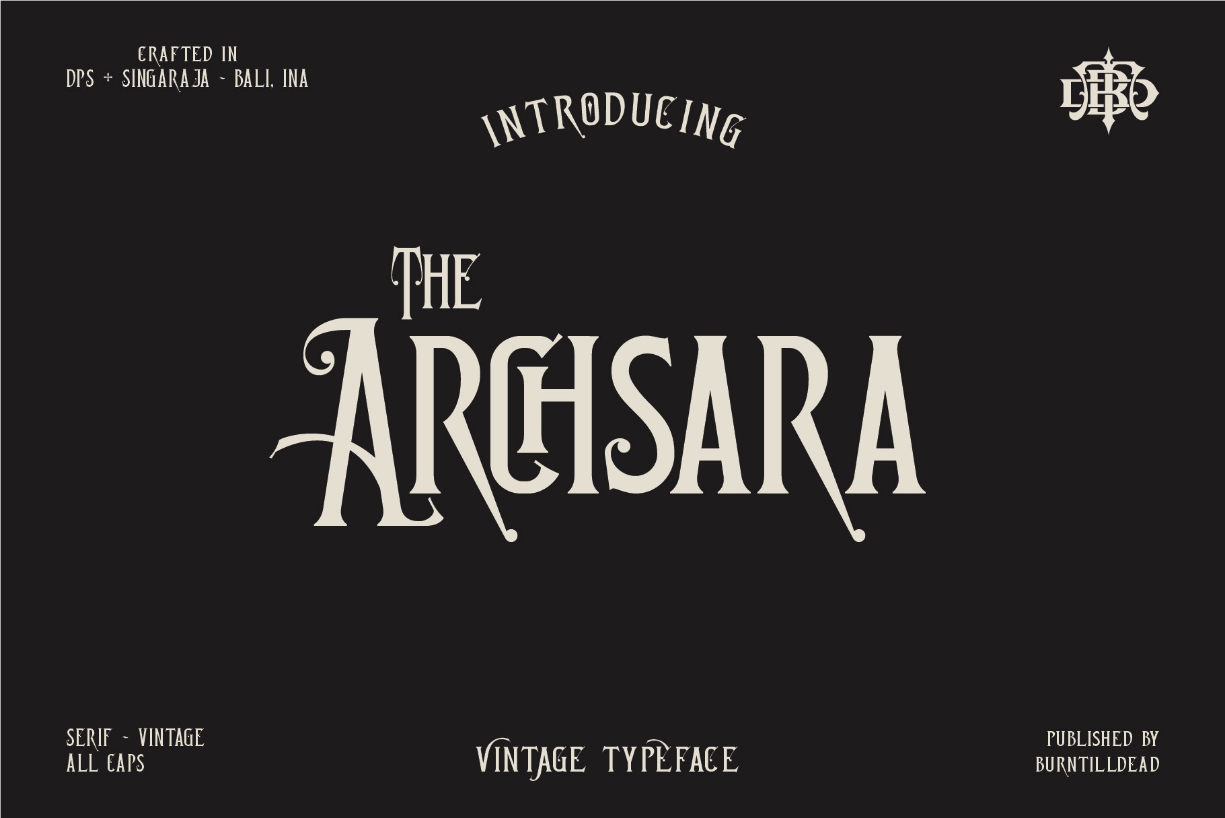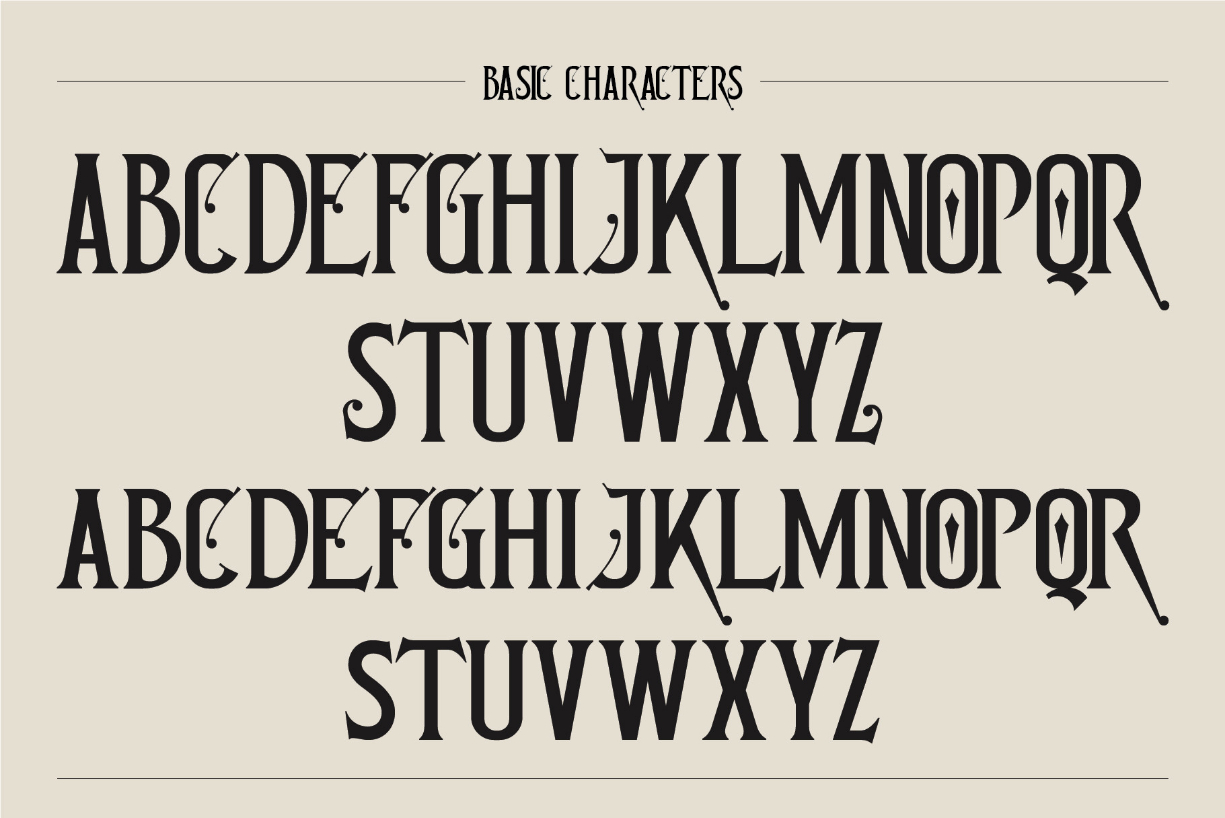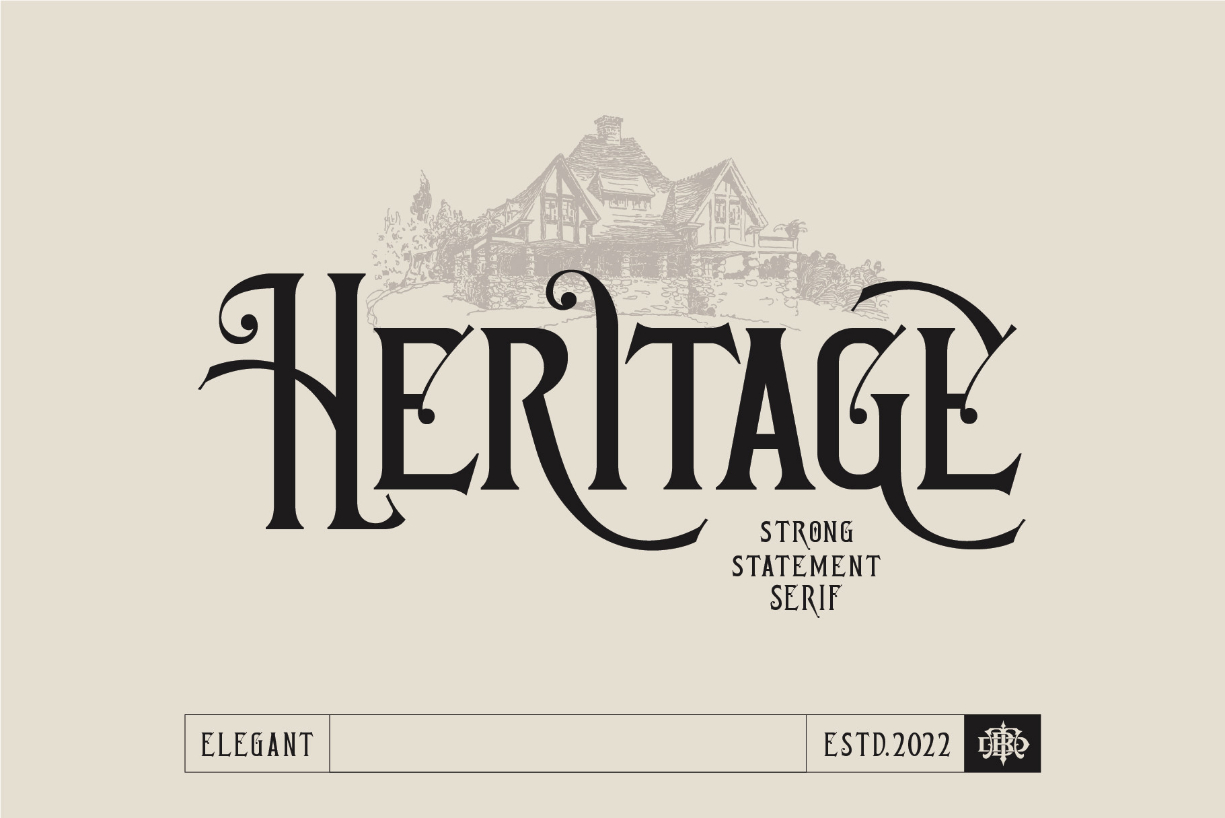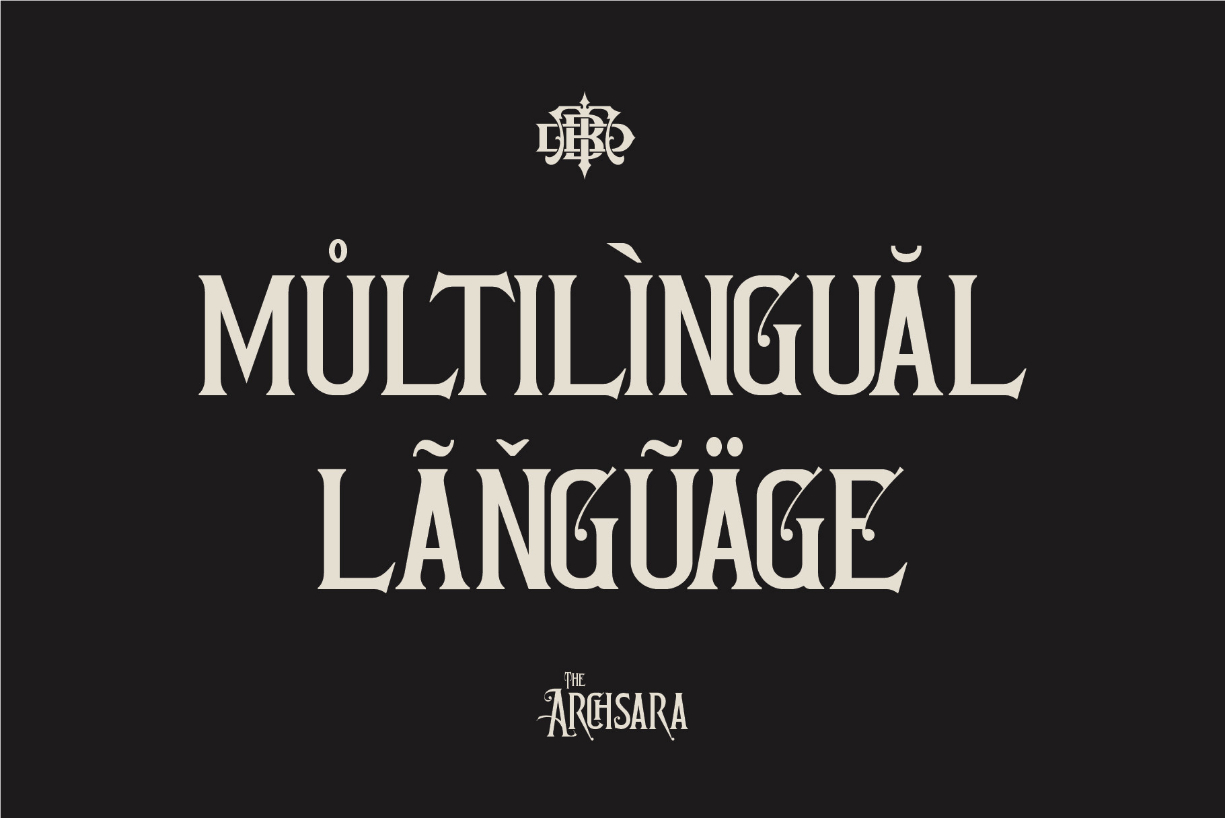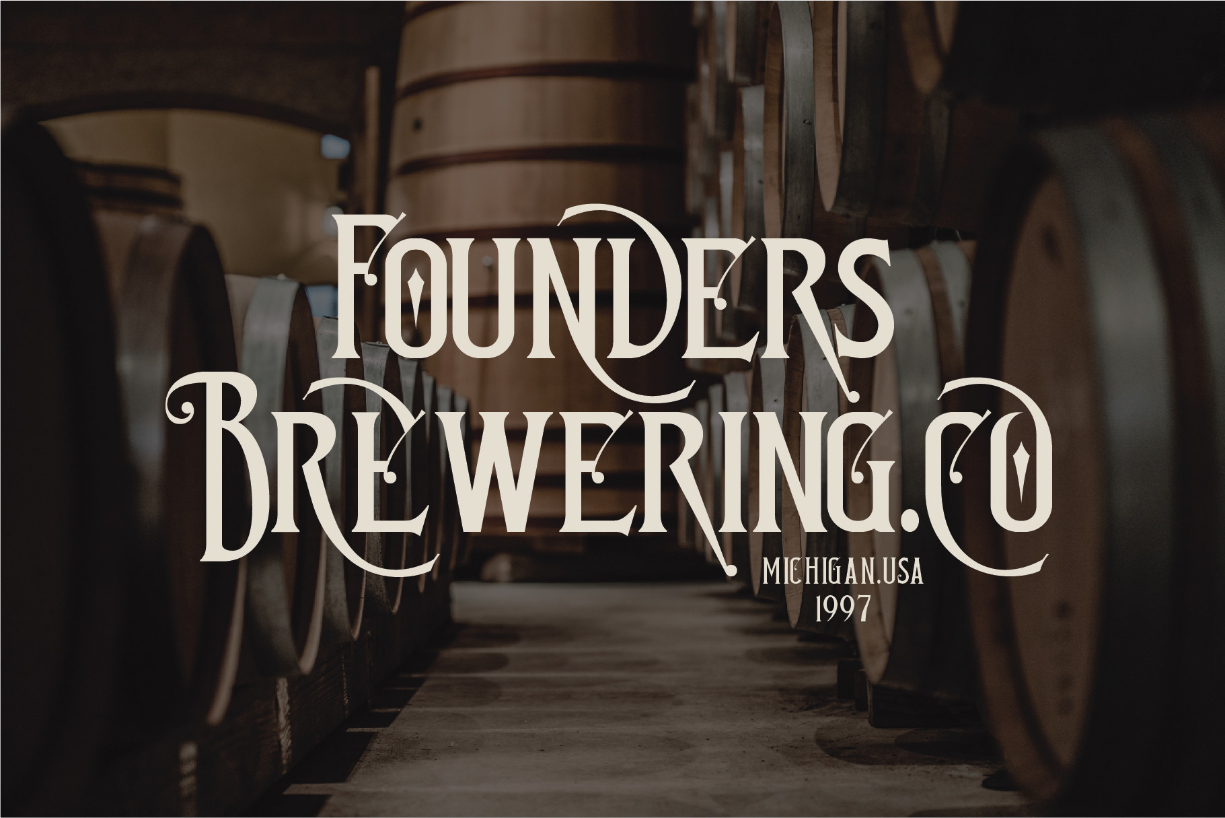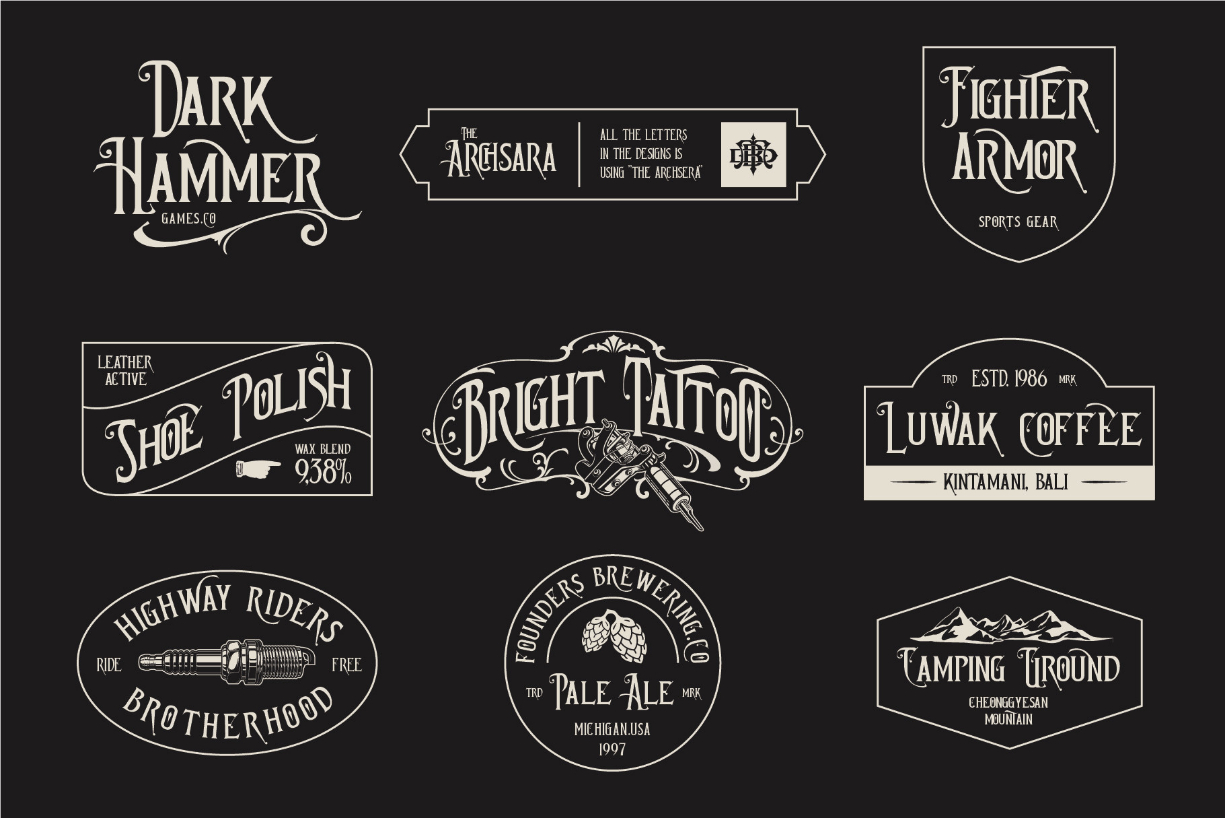
Achsara Font
About Achsara Font
Archsara is a vintage blackletter font inspired by hanging signs from the late 9th century. This font is made to add a jaw-dropping effect to your projects.
Crafted with a simple & elegant decorative shape, this font is great for an artsy logo, headline, document, sign, etc. Use it for designs that need strong, brave, motivated & fearless looks. Highly recommended for any kingdom & Unite themes (knight, dragon, Viking, sword, etc)